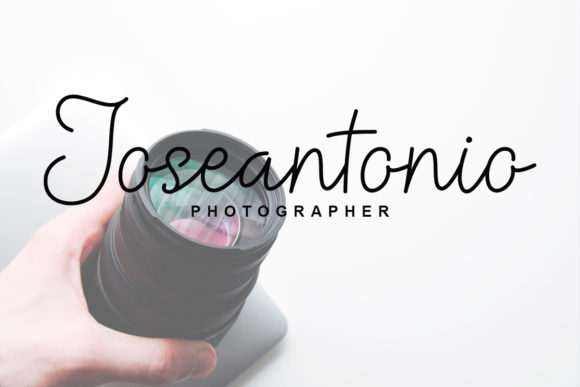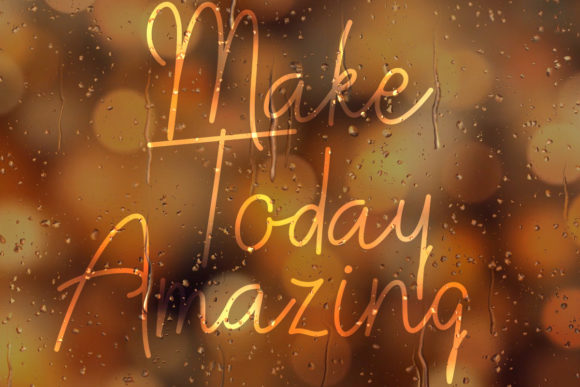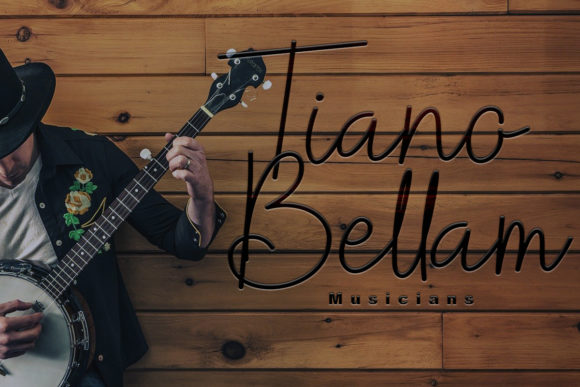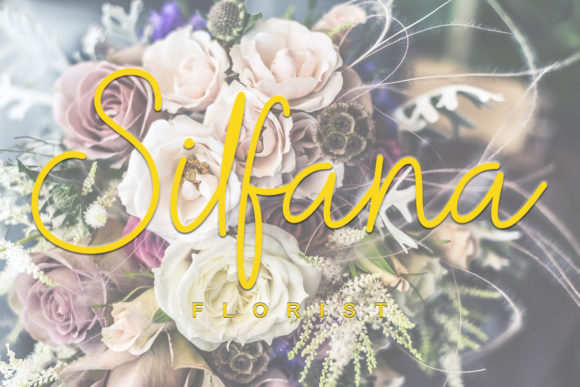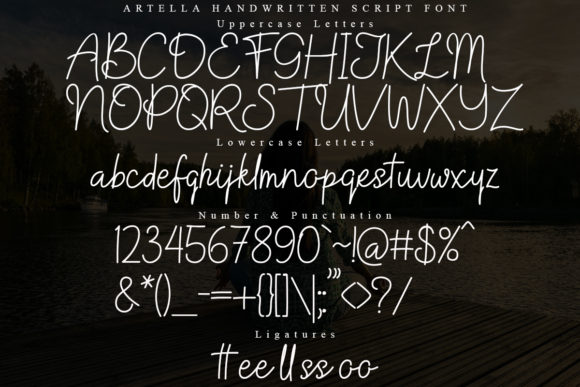
Introducing Artella Font: Elevate Your Designs with a Delicate Handwritten Touch
In the world of typography, fonts play a crucial role in bringing designs to life. For designers and crafters looking for a unique and modern touch, Artella Font is an excellent choice. This delicate handwritten font features wide and round characters that add a fresh and modern twist to any design. In this article, we’ll explore the features and benefits of Artella Font, and how it can be used to elevate your designs.
What is Artella Font?
Artella Font is a beautiful, delicate handwritten font that boasts wide and round characters. Its unique design makes it perfect for adding a personal touch to your designs. Whether you’re working on a branding project, creating social media graphics, or crafting invitations, Artella Font is sure to make your designs stand out.
Key Features of Artella Font
- Delicate Handwritten Style: Artella Font features a delicate handwritten style that adds a touch of elegance and sophistication to your designs.
- Wide and Round Characters: The font’s wide and round characters make it perfect for creating visually appealing designs that grab attention.
- Fresh and Modern Touch: Artella Font brings a fresh and modern twist to your designs, making them look contemporary and stylish.
- Easy to Read: Despite its delicate nature, Artella Font is easy to read, making it perfect for body text and headings.
Benefits of Using Artella Font
So, why should you use Artella Font in your designs? Here are some benefits that make it an excellent choice:
- Unique and Creative: Artella Font is a unique and creative font that can help you stand out from the crowd.
- Versatile: The font is versatile and can be used in a variety of design projects, from branding and advertising to crafting and DIY projects.
- Easy to Pair: Artella Font pairs well with other fonts, making it easy to create stunning font combinations.
- Supports Multiple Languages: The font supports multiple languages, making it a great choice for designers working on international projects.
How to Use Artella Font in Your Designs
Using Artella Font in your designs is easy. Here are some tips to get you started:
- Pair it with Bold Fonts: Pair Artella Font with bold fonts to create stunning contrast and visual interest.
- Use it for Headings and Titles: Use Artella Font for headings and titles to add a touch of elegance and sophistication.
- Play with Font Sizes: Play with font sizes to create visual hierarchy and add depth to your design.
| Font Name | Artella Font |
| Author | SungiCreative |
In conclusion, Artella Font is a beautiful and delicate handwritten font that can add a fresh and modern touch to your designs. Its unique features and benefits make it an excellent choice for designers and crafters looking for a unique and creative font. With its ease of use and versatility, Artella Font is sure to become a staple in your font collection.